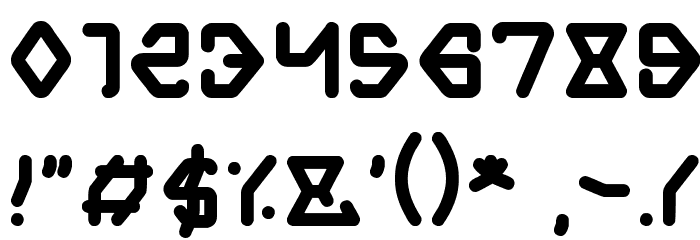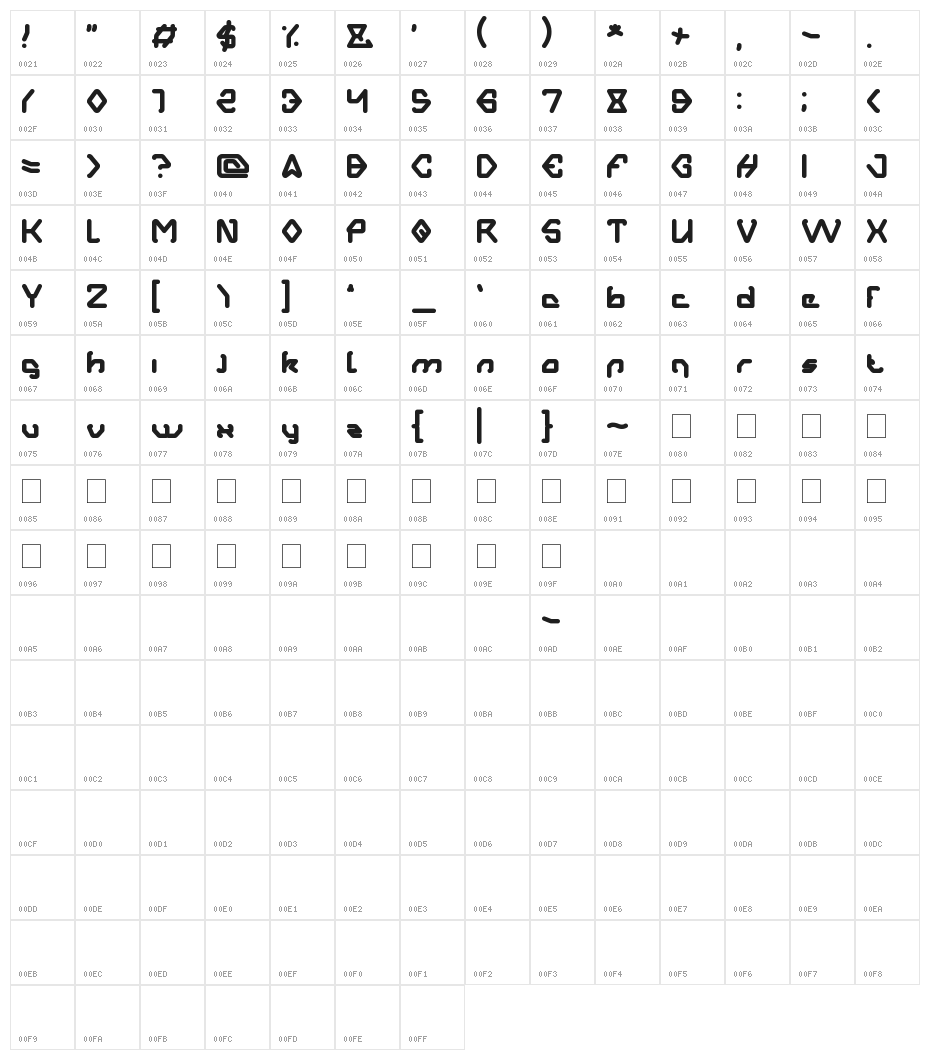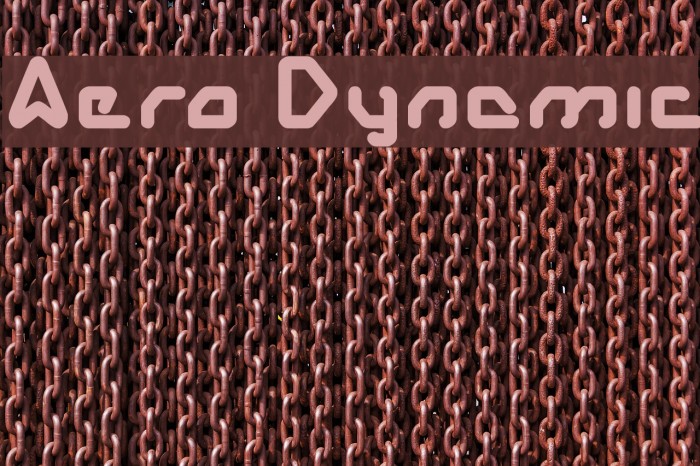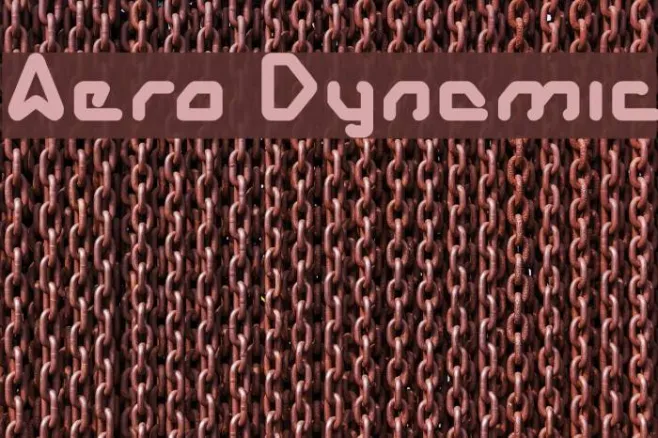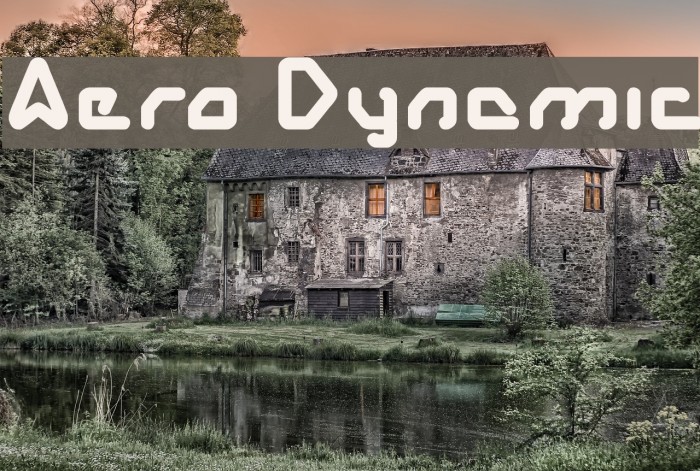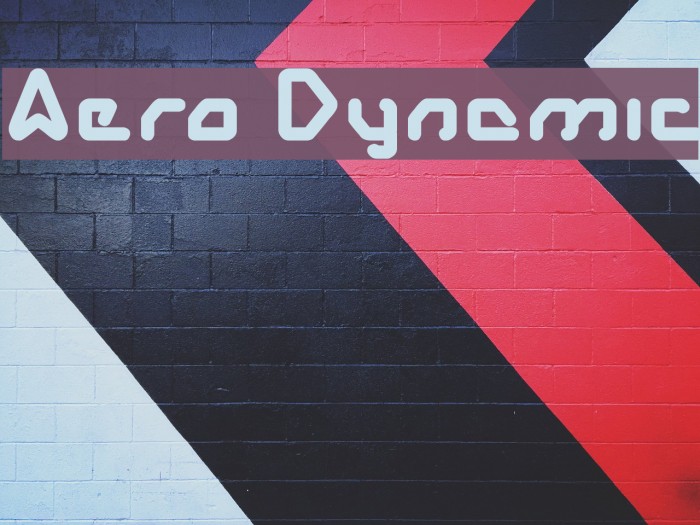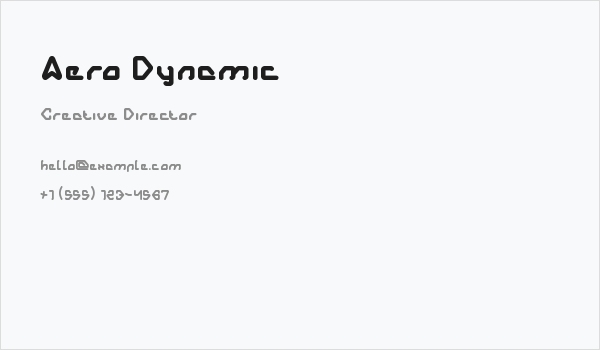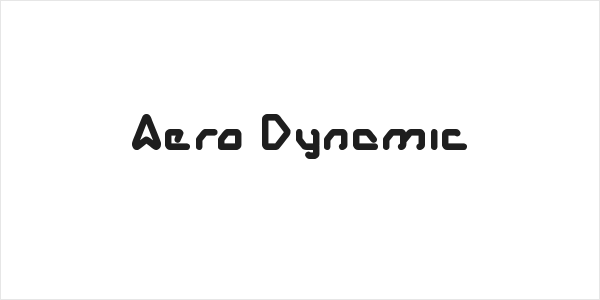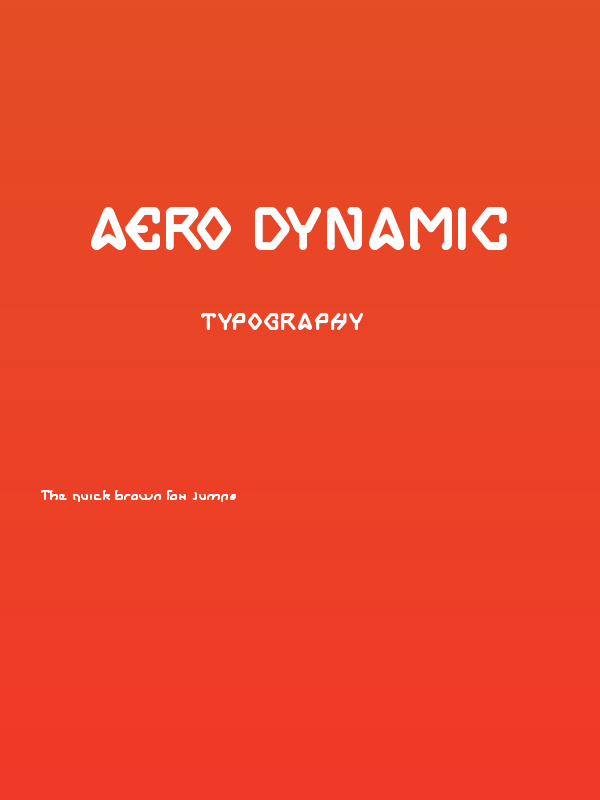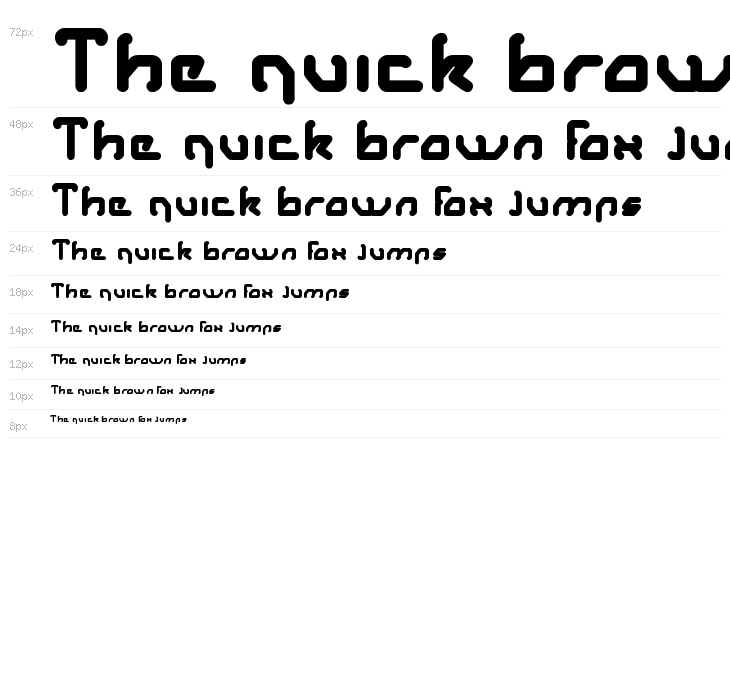
Aero Dynamic Font
Aero Dynamic Description
This font features a futuristic and geometric design, characterized by bold, angular shapes and a consistent stroke width. The characters are constructed with a combination of straight lines and sharp angles, giving it a dynamic and modern appearance. The uppercase and lowercase letters maintain a uniform style, while the numbers and special characters complement the overall aesthetic. The font's unique style makes it stand out, with a strong presence that is both eye-catching and readable.